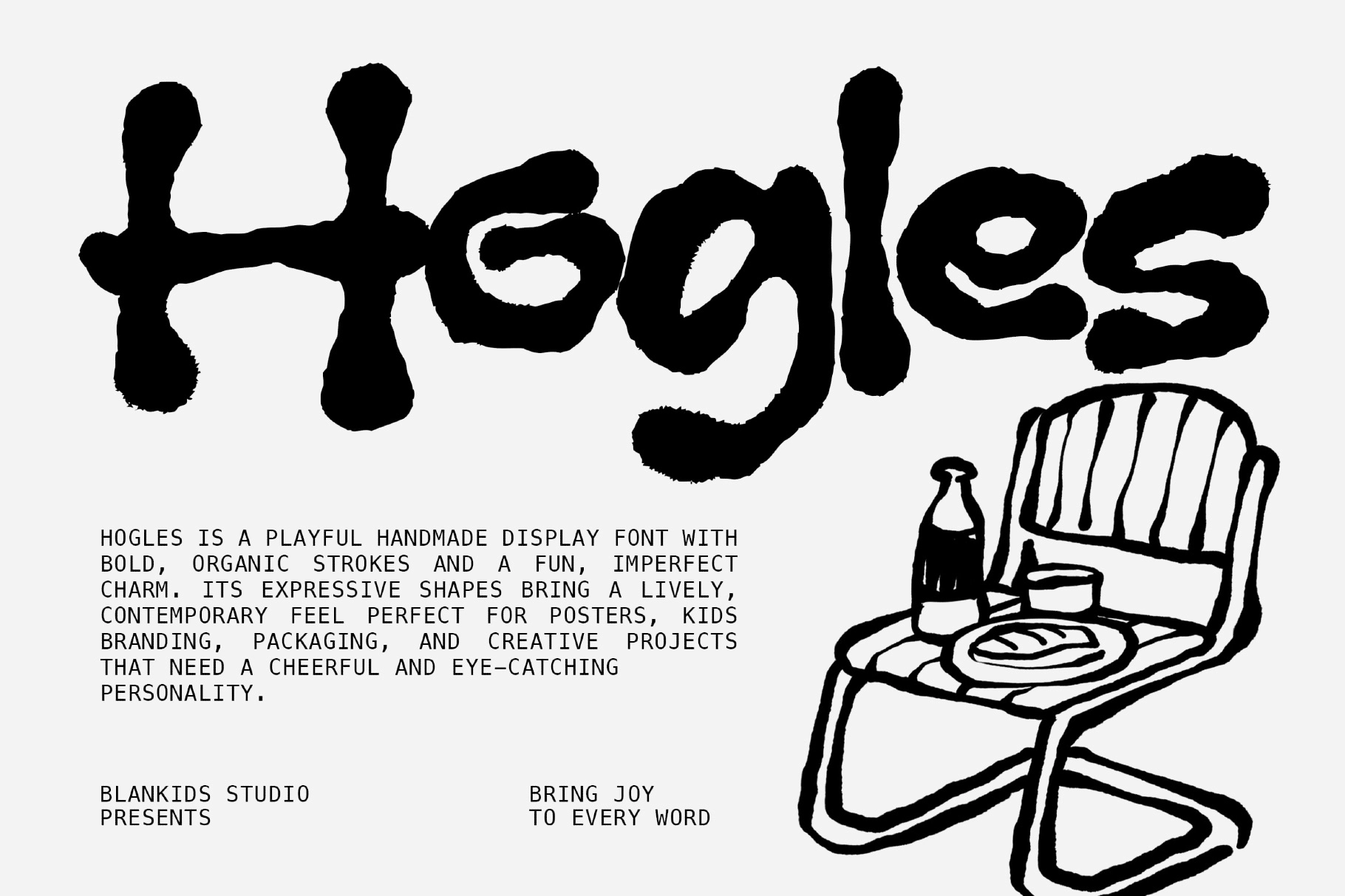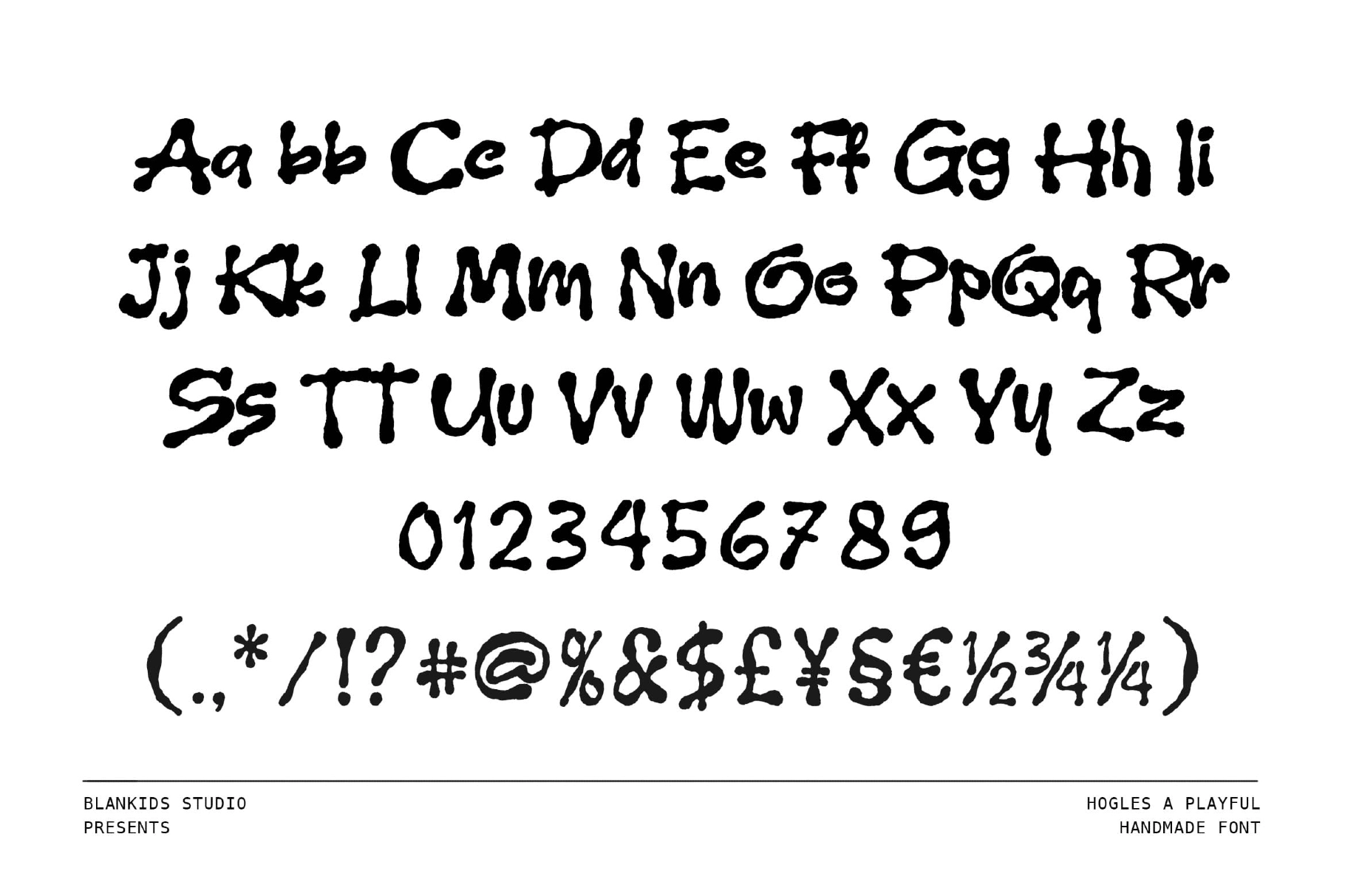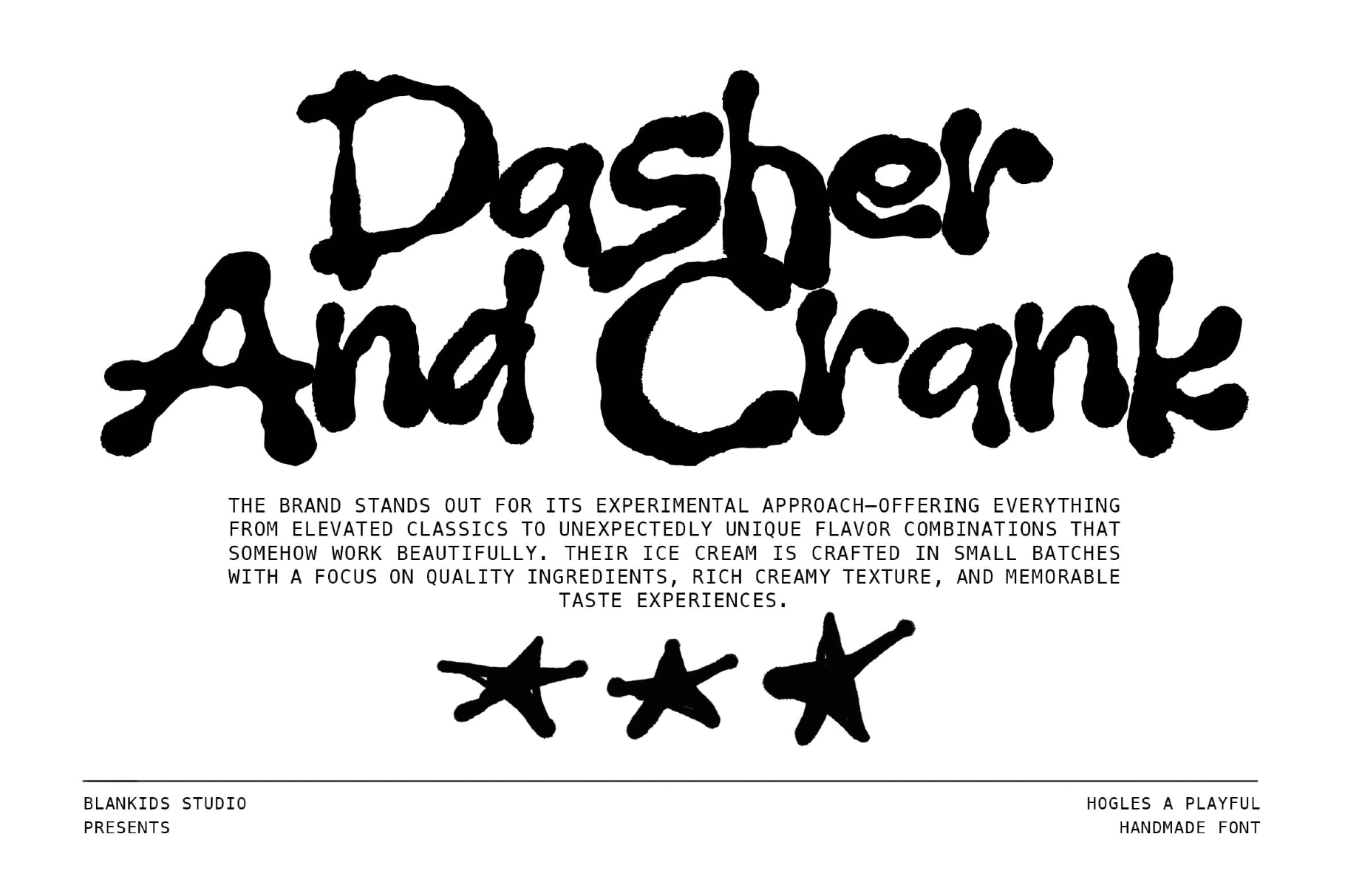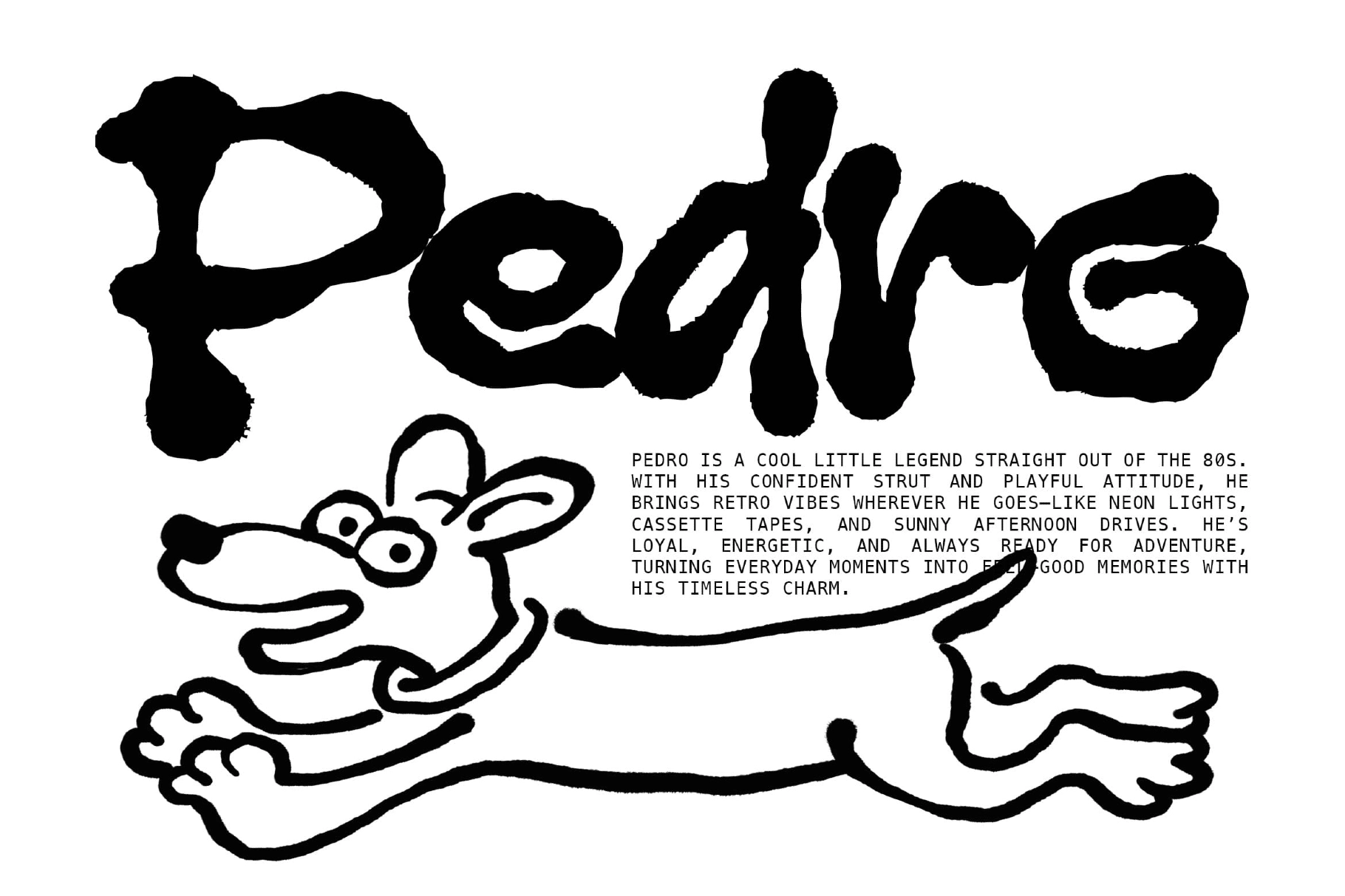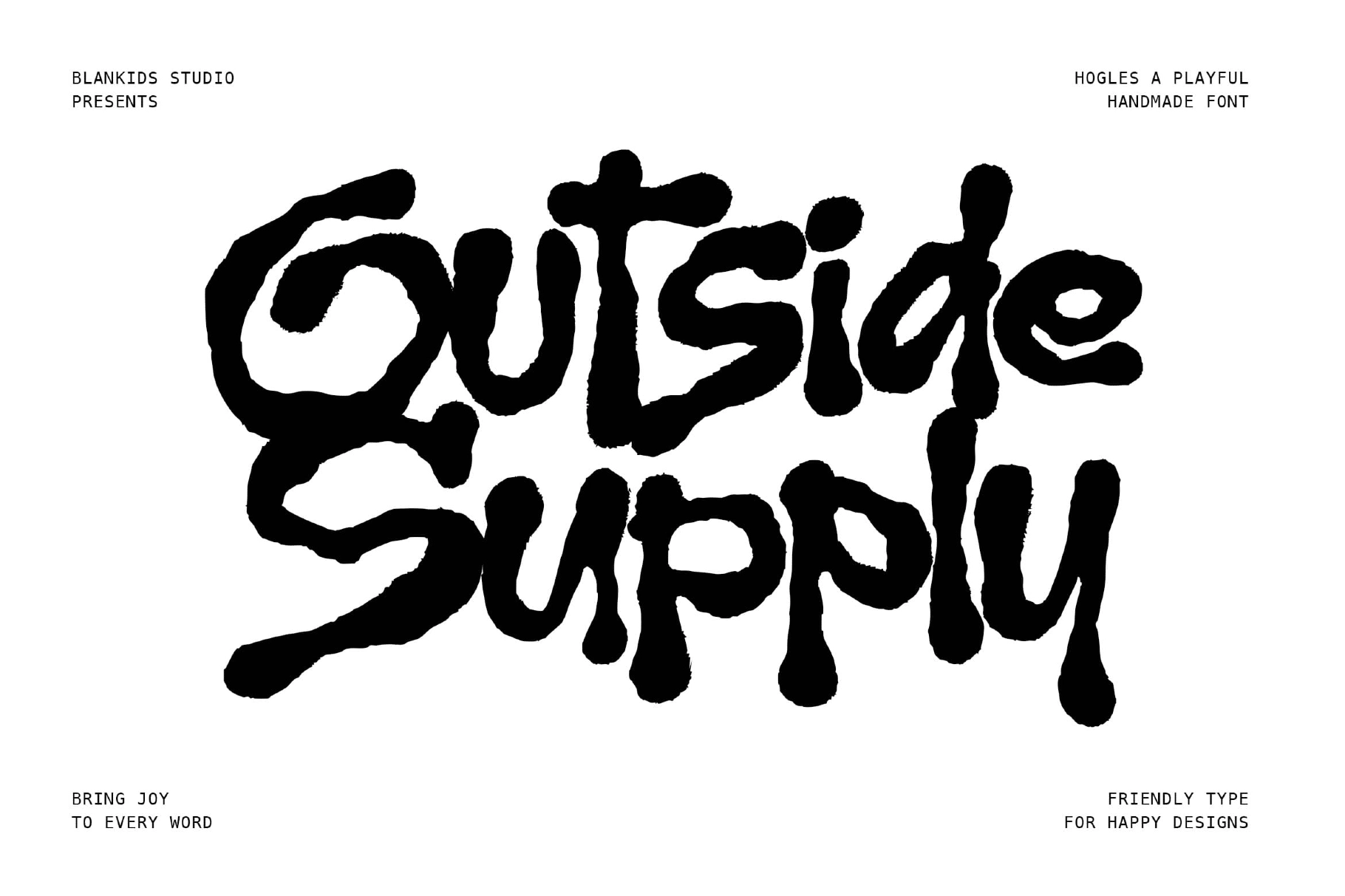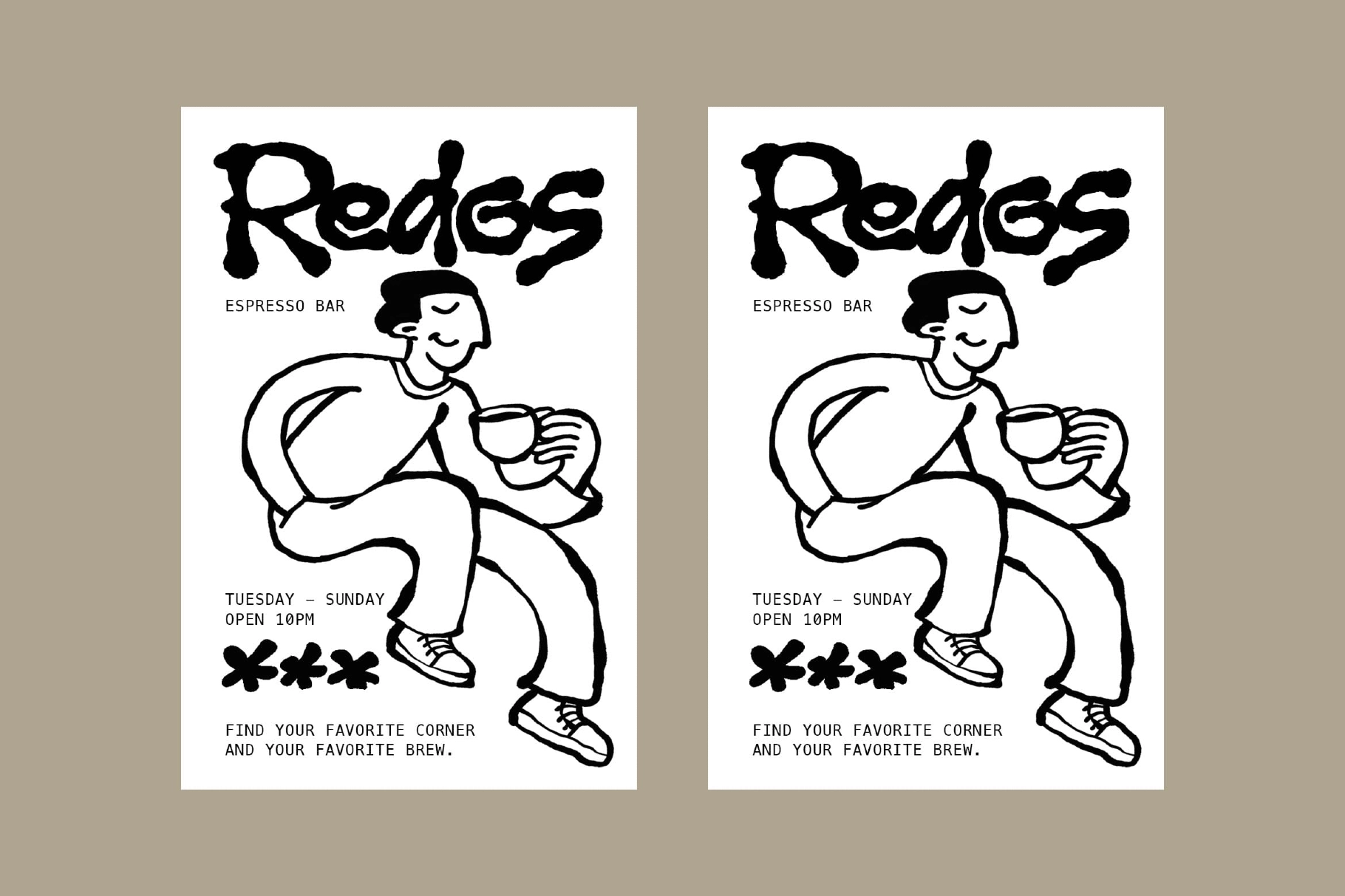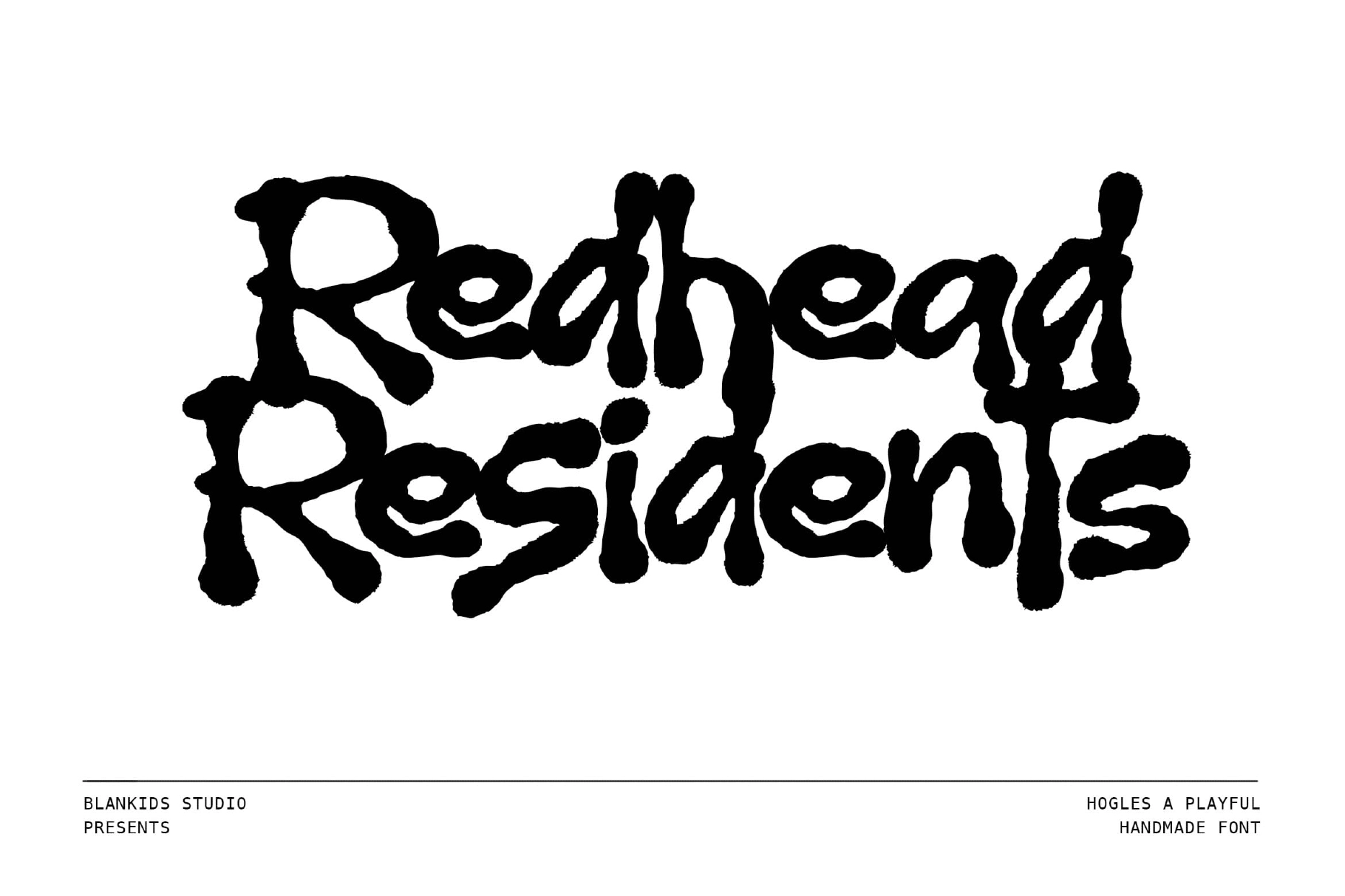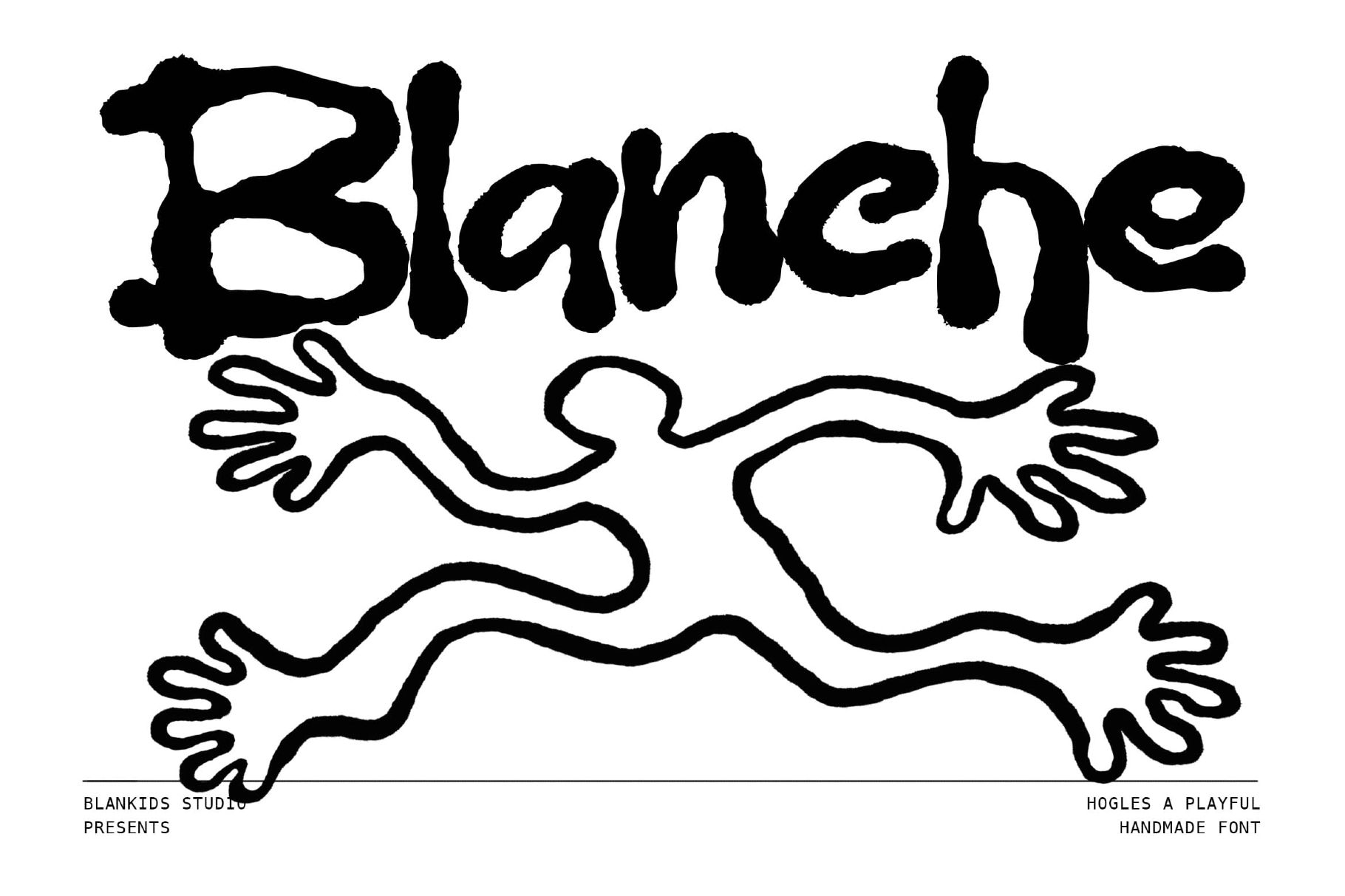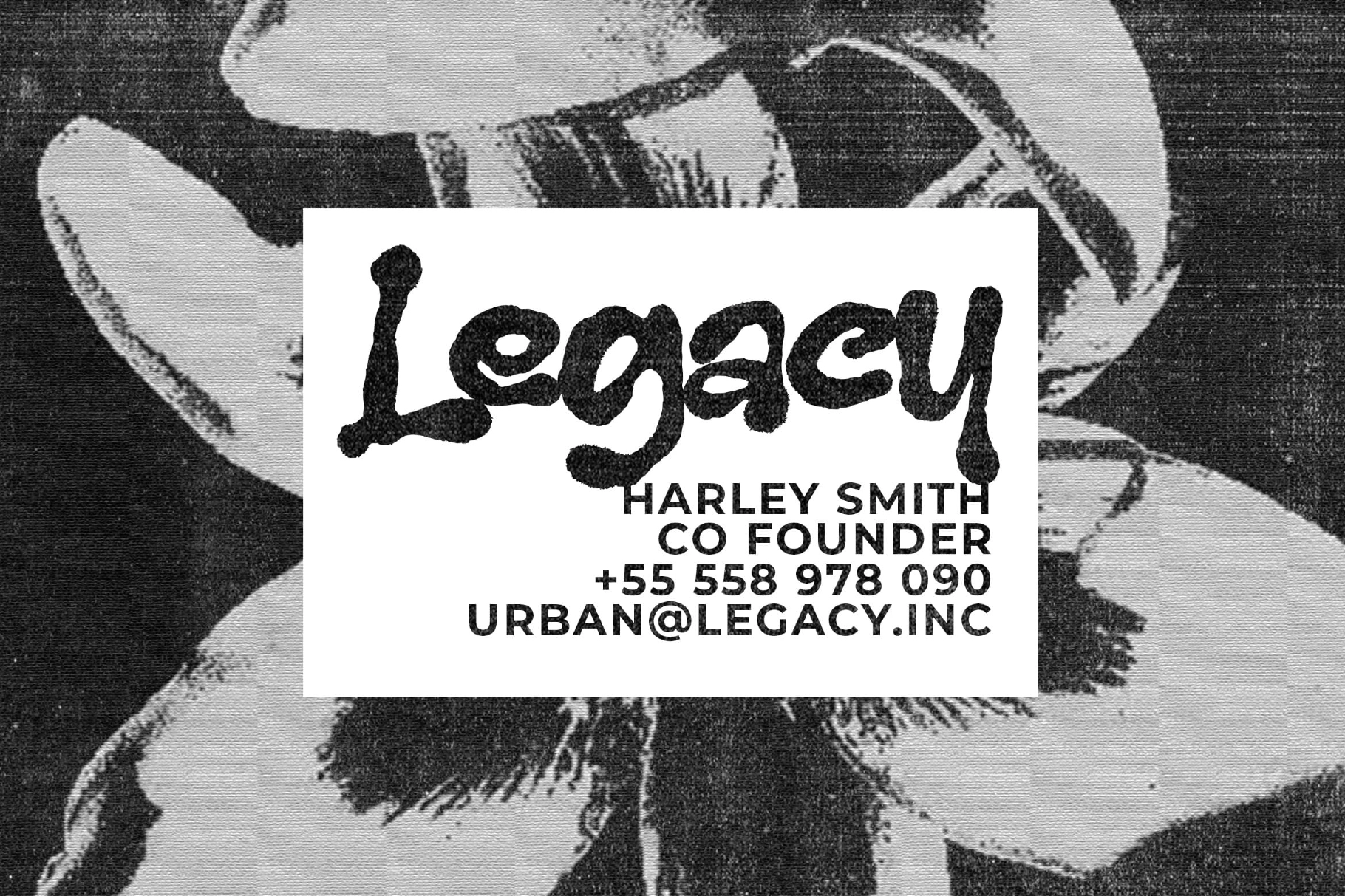
Hogles – Playful Handmade Display Font
Hogles
A bold playful display font with rough marker strokes, uneven edges, and loose hand-drawn shapes. Its chunky letters have a casual, slightly messy charm that gives headlines a friendly punch without polishing away the human quirks.
Hogles is made for posters, kids’ branding, snack packaging, book covers, café graphics, toy labels, sticker packs, classroom materials, social media posts, merch prints, comic-style titles, and cheerful logo concepts. The hand-rendered texture adds personality fast, which is handy when clean type starts acting a little too well-behaved.